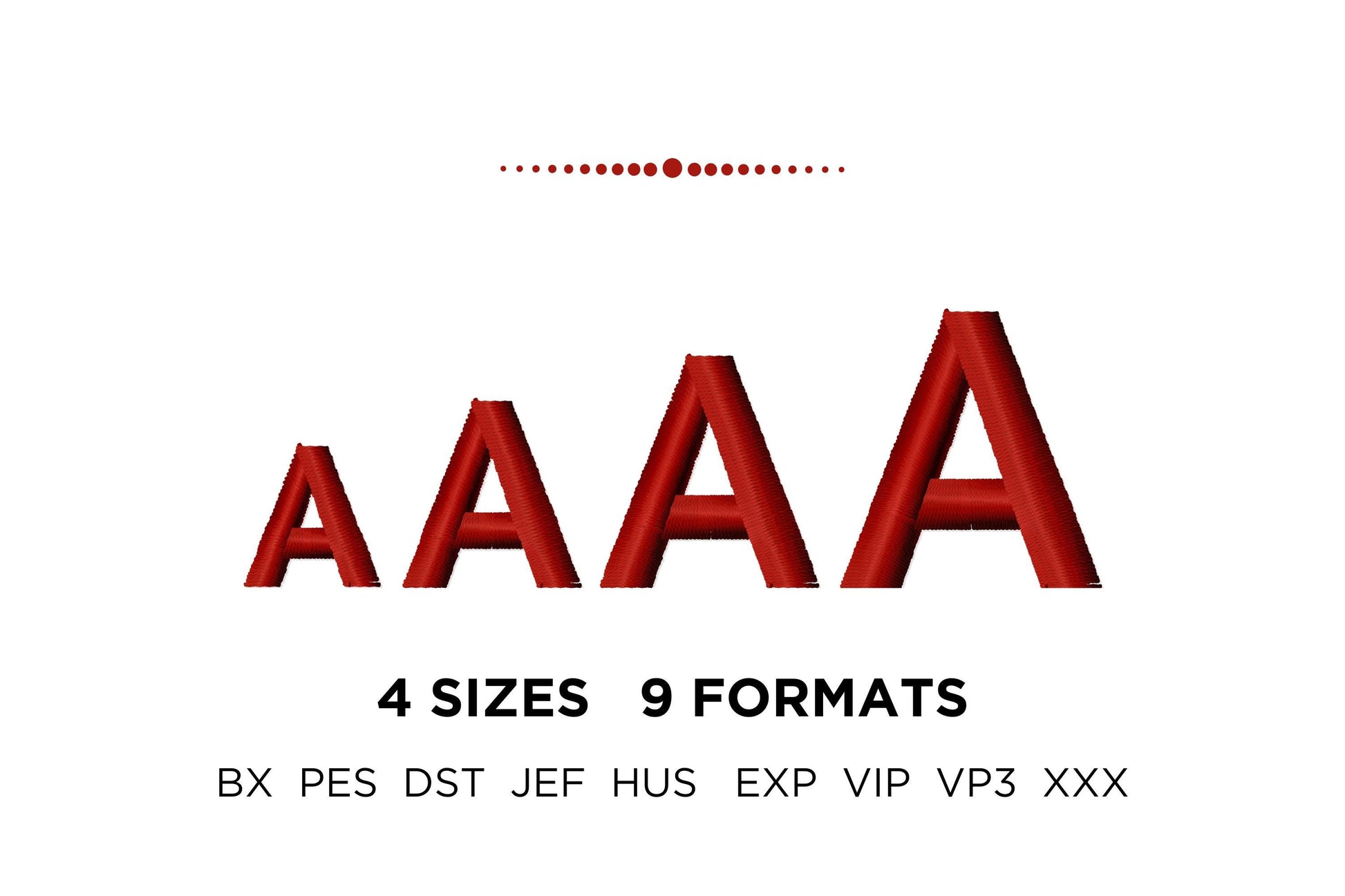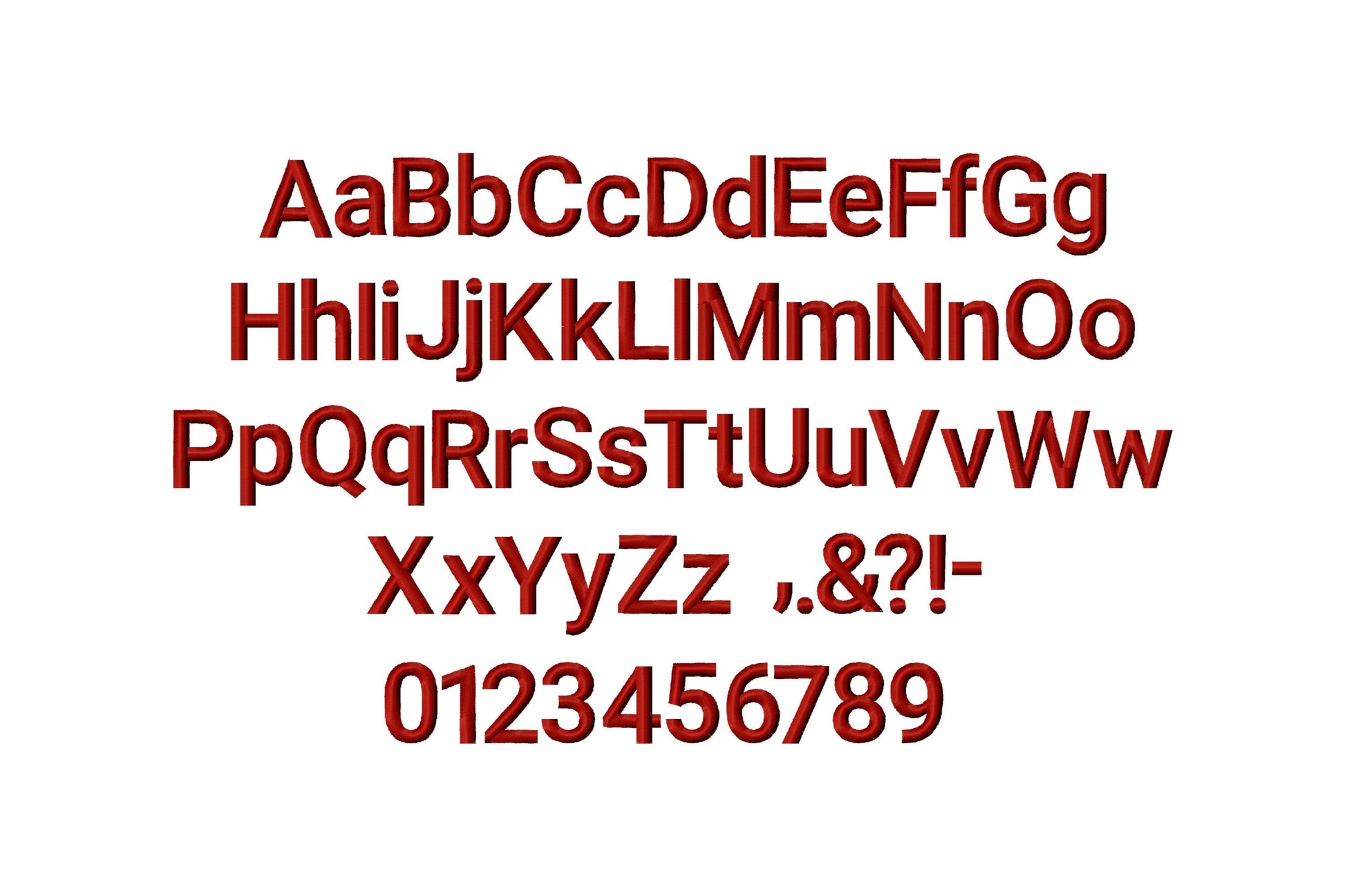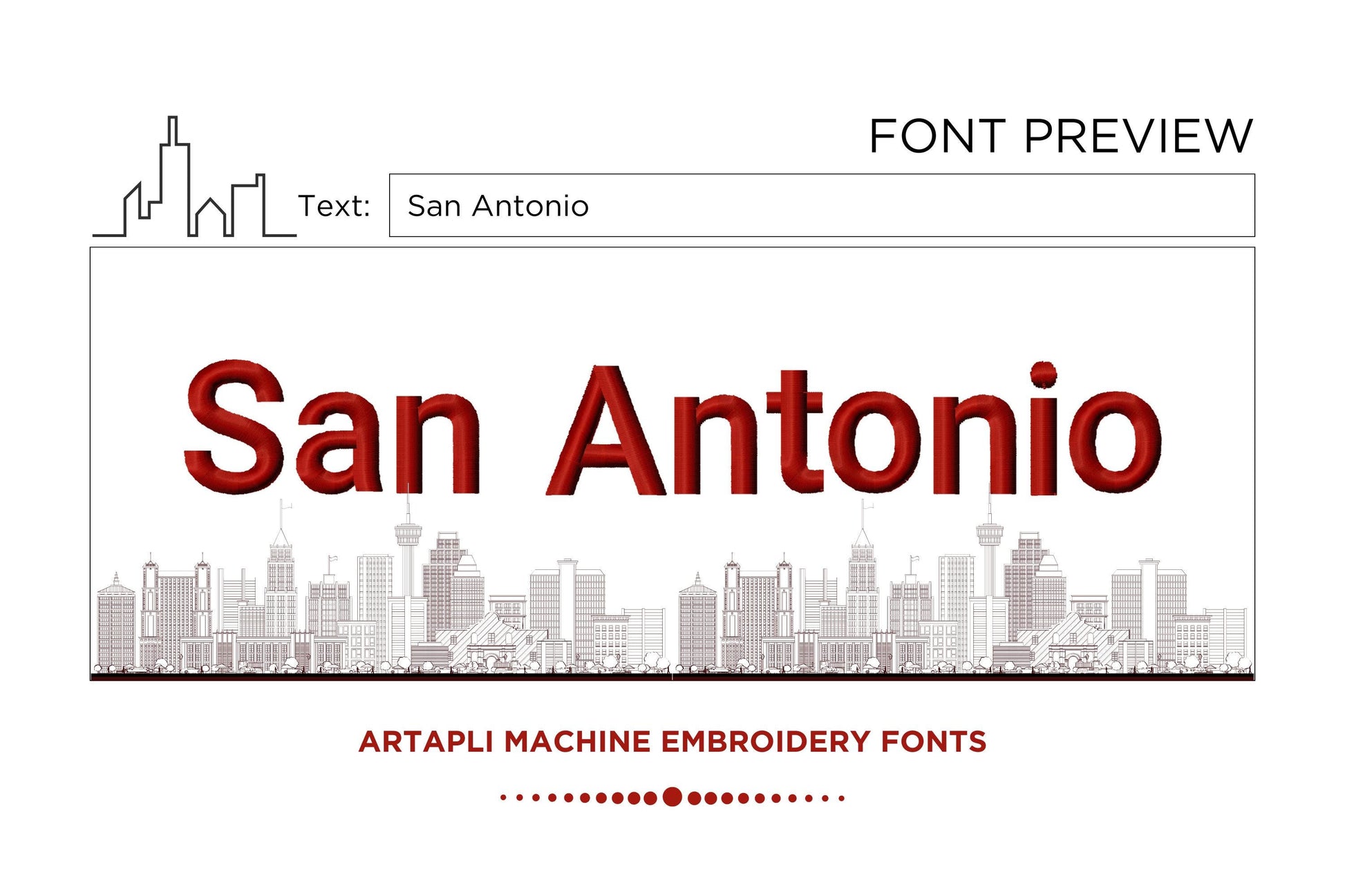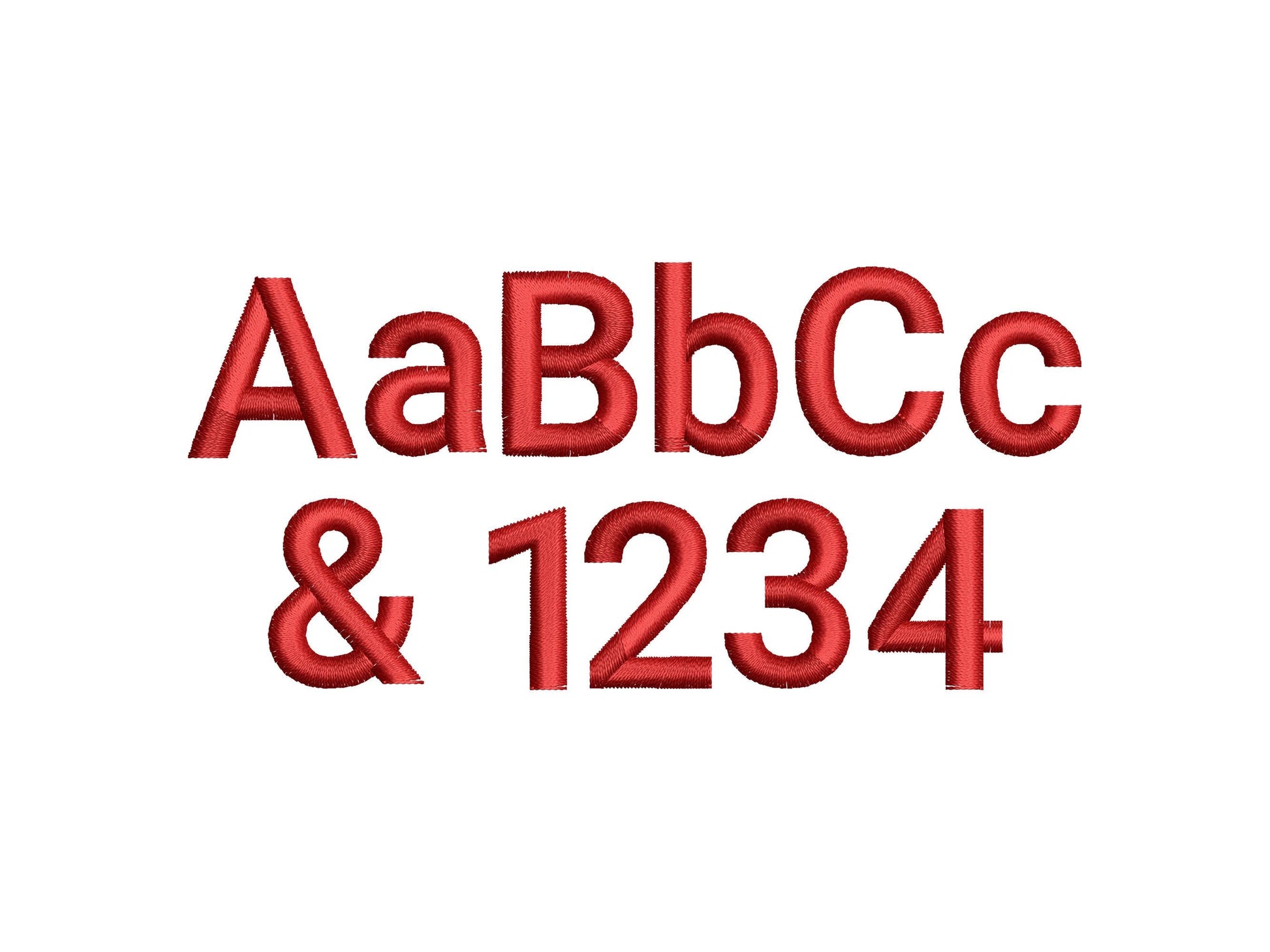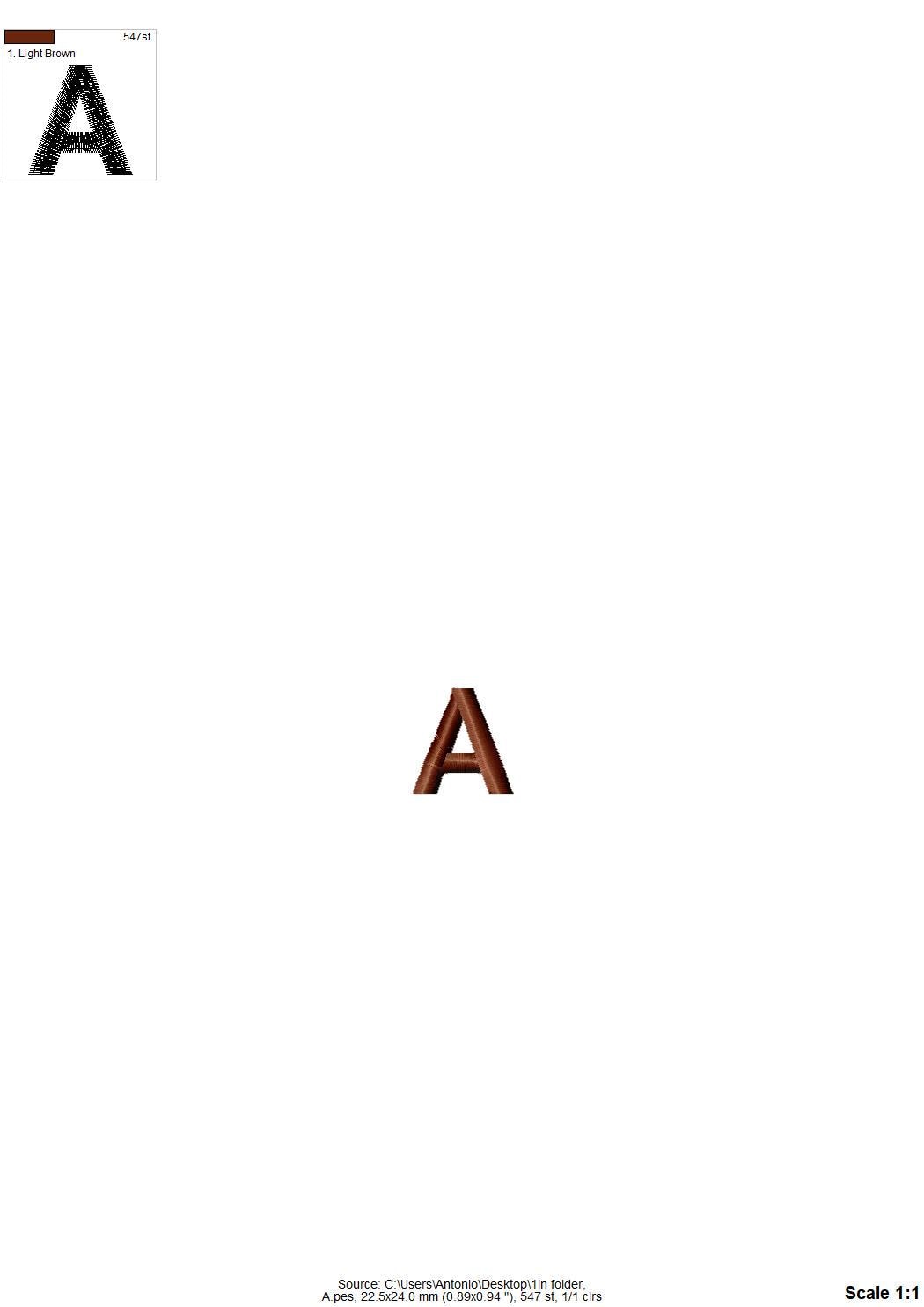
Satin Stitch Mini Block Font Tiny Small
Uppercase and lowercase letters, numbers and punctuation in four sizes: 0.6, 0.8, 1 and 1.2 inches.
- Mini satin block font
- Uppercase, lowercase, numbers 0-9, punctuation
- 4 sizes, 0.6 to 1.2 in